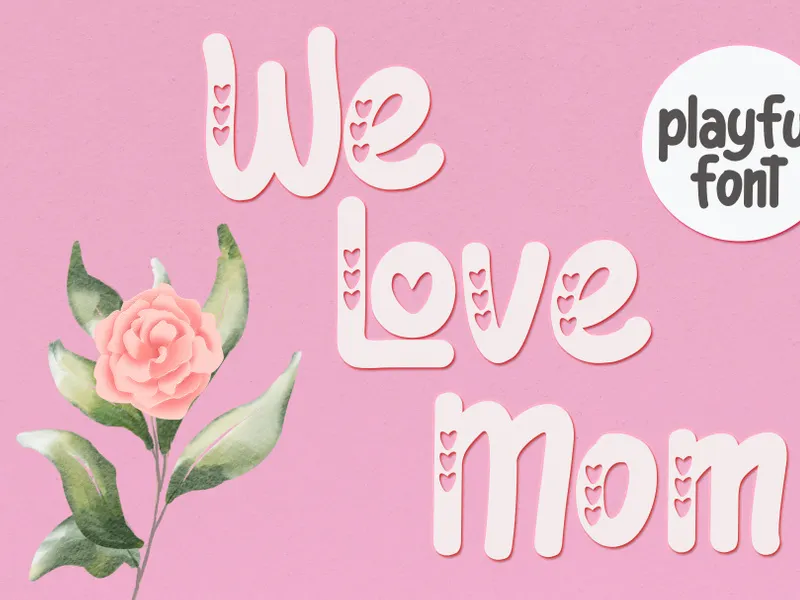
We Love Mom - Playful Font
We Love Mom font is a Display font by Letterafa Studio. It has flowing letters that will give your designs a unique and sweet look. We Love Mom font is perfect; logos, greeting cards, a package design, a brand identity, craft design, any DIY project, book title, wedding invitation, packaging, and more.